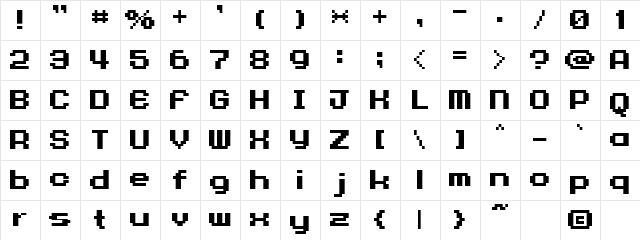
9px3bus Regular
Design Context for 9px3bus Typeface
9px3bus offers clean, dependable letterforms without strong stylistic allegiance, making it a practical choice for designers who need flexibility.